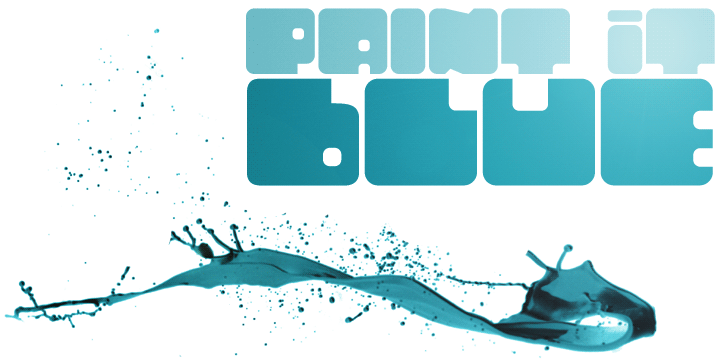
Tonal is a fat typeface, geometrical in its peculiar way. It’s an unicase alphabet, but offers an alternative choice for each letter, providing flexibility to your artwork.